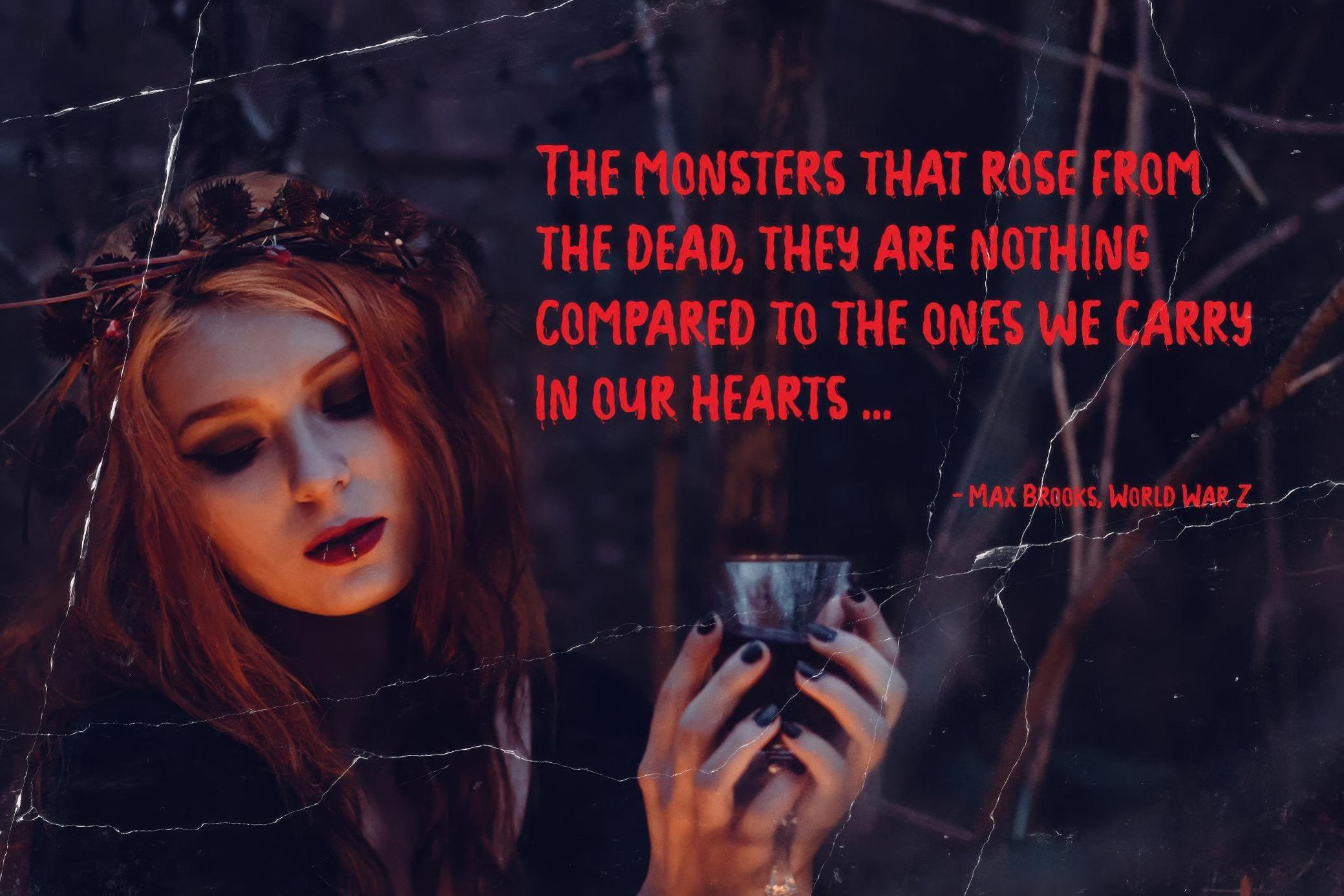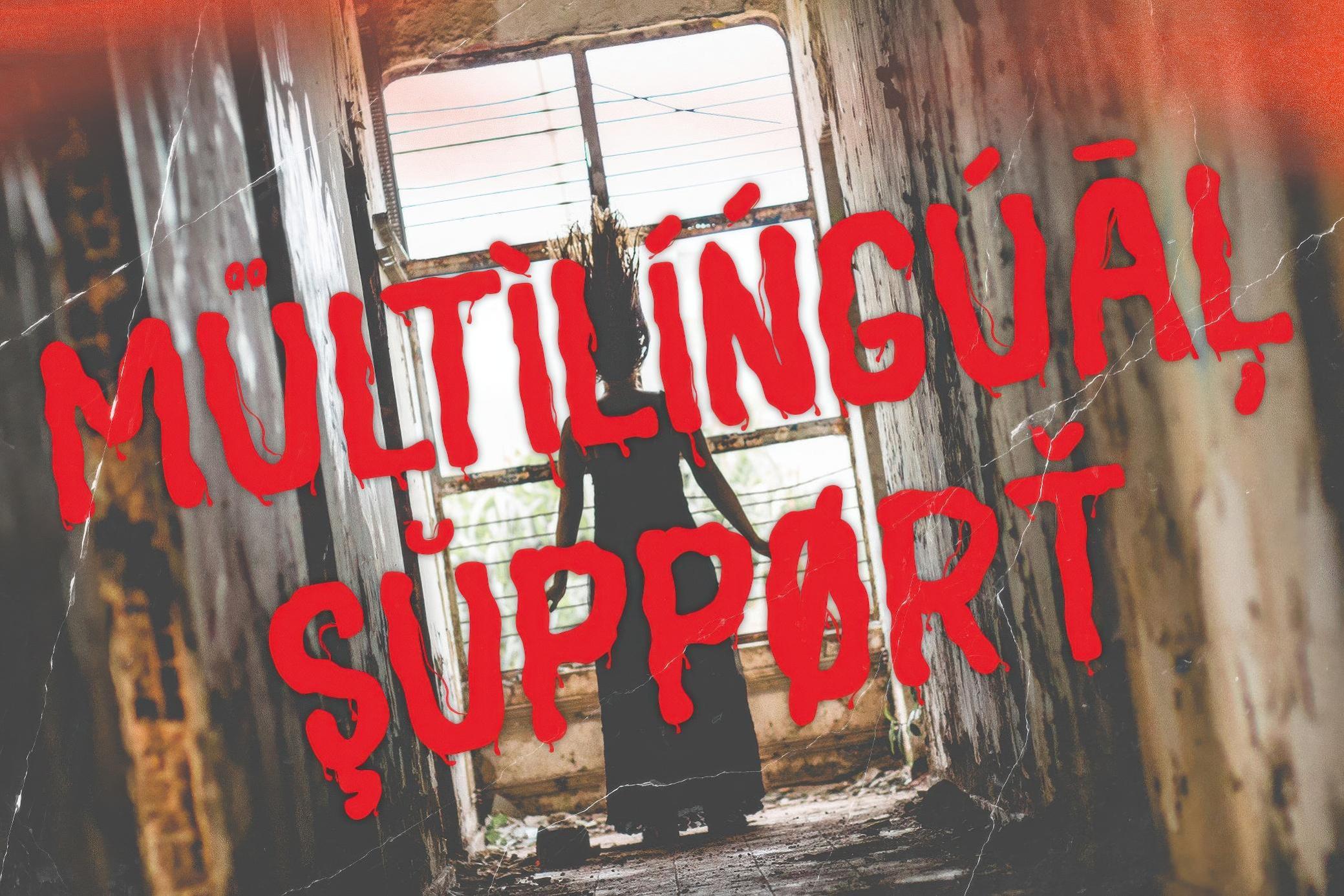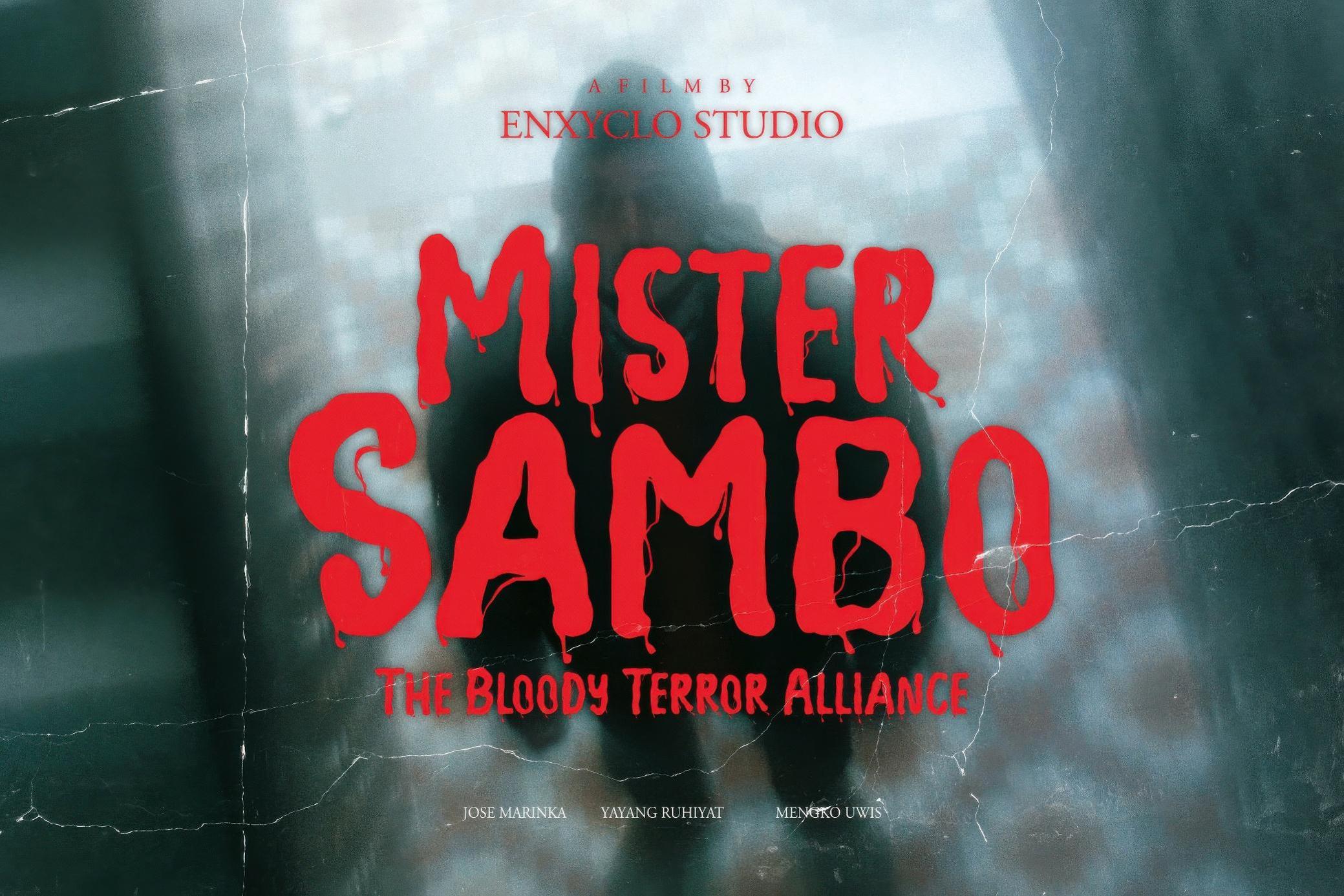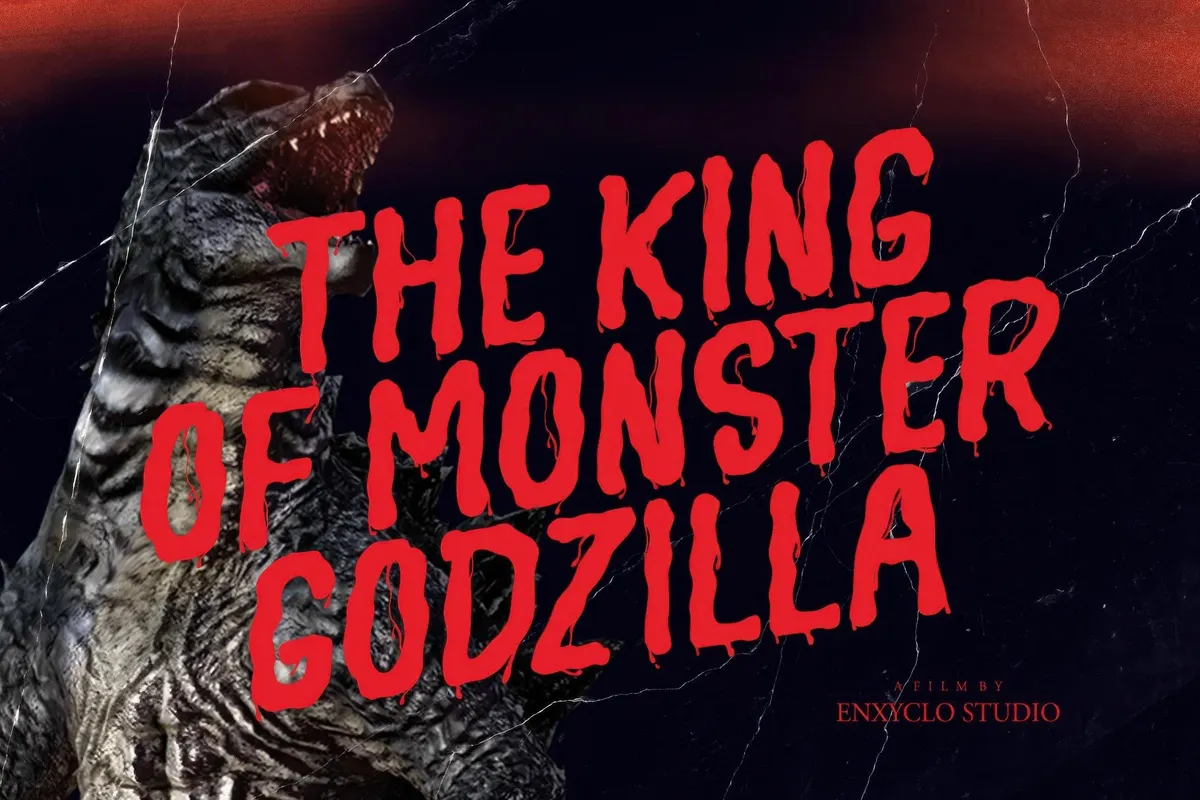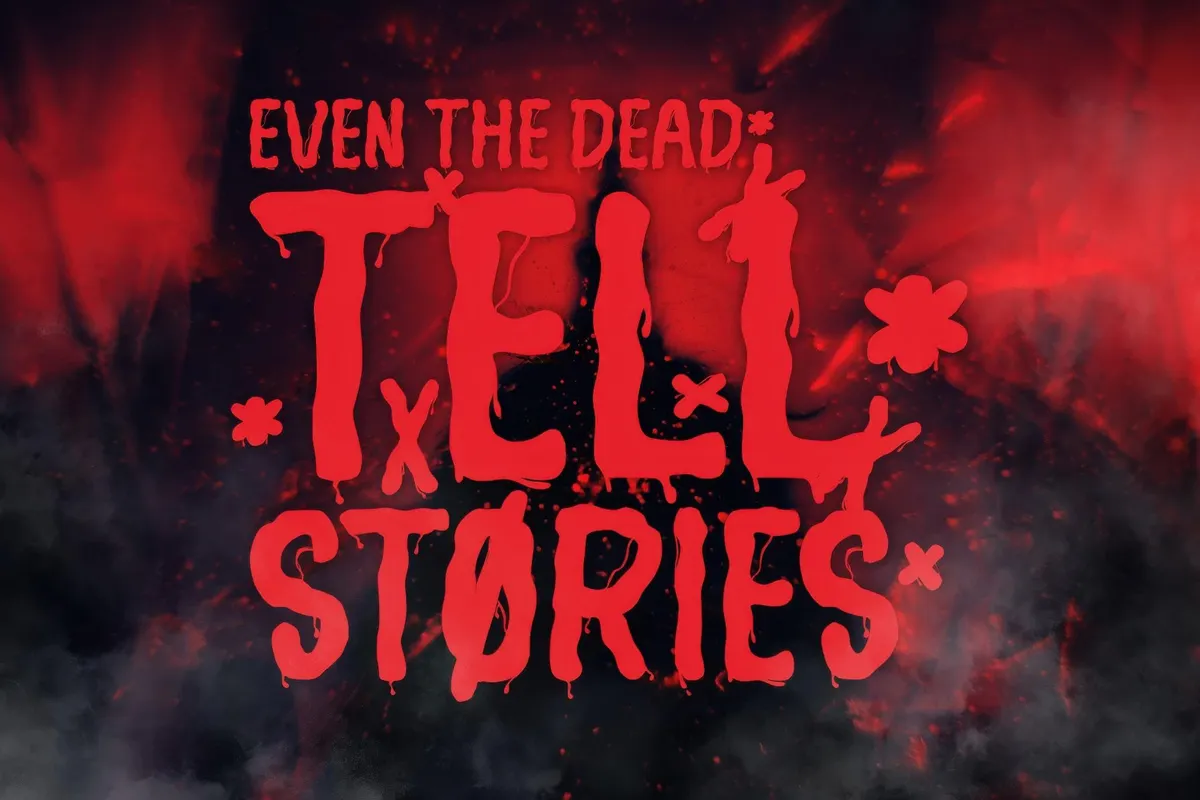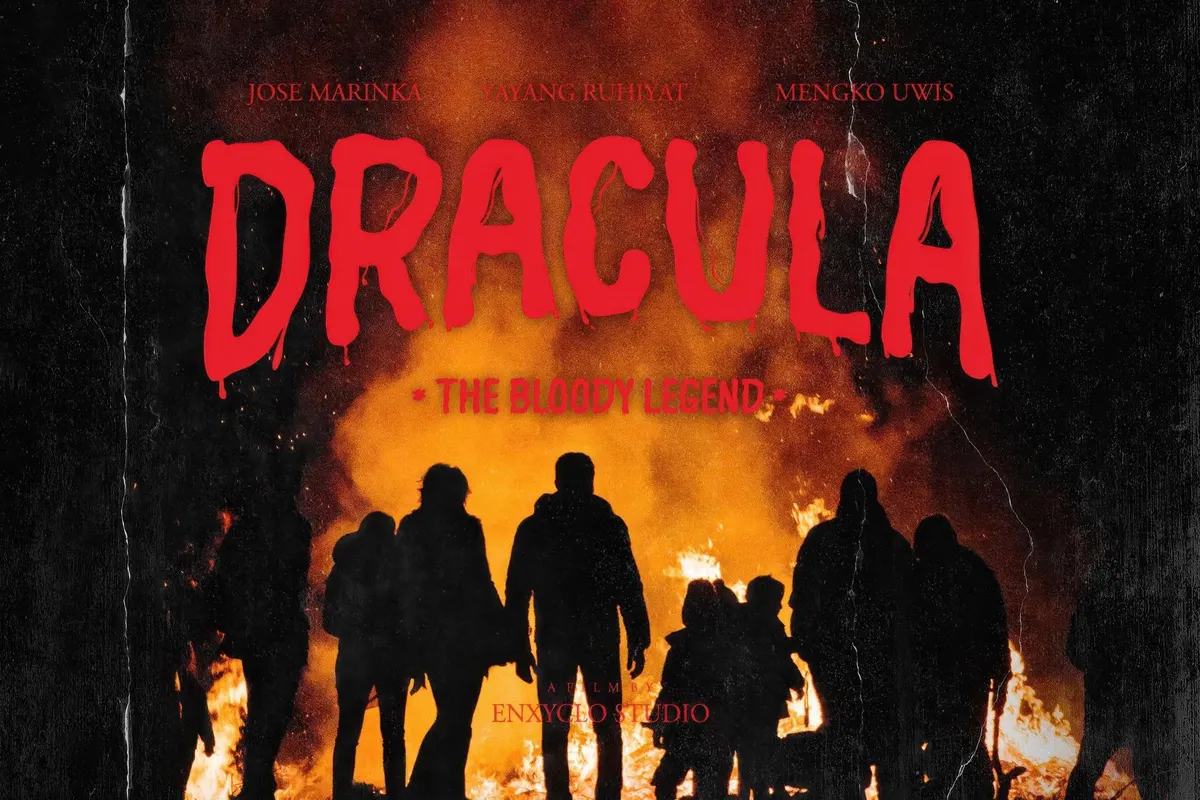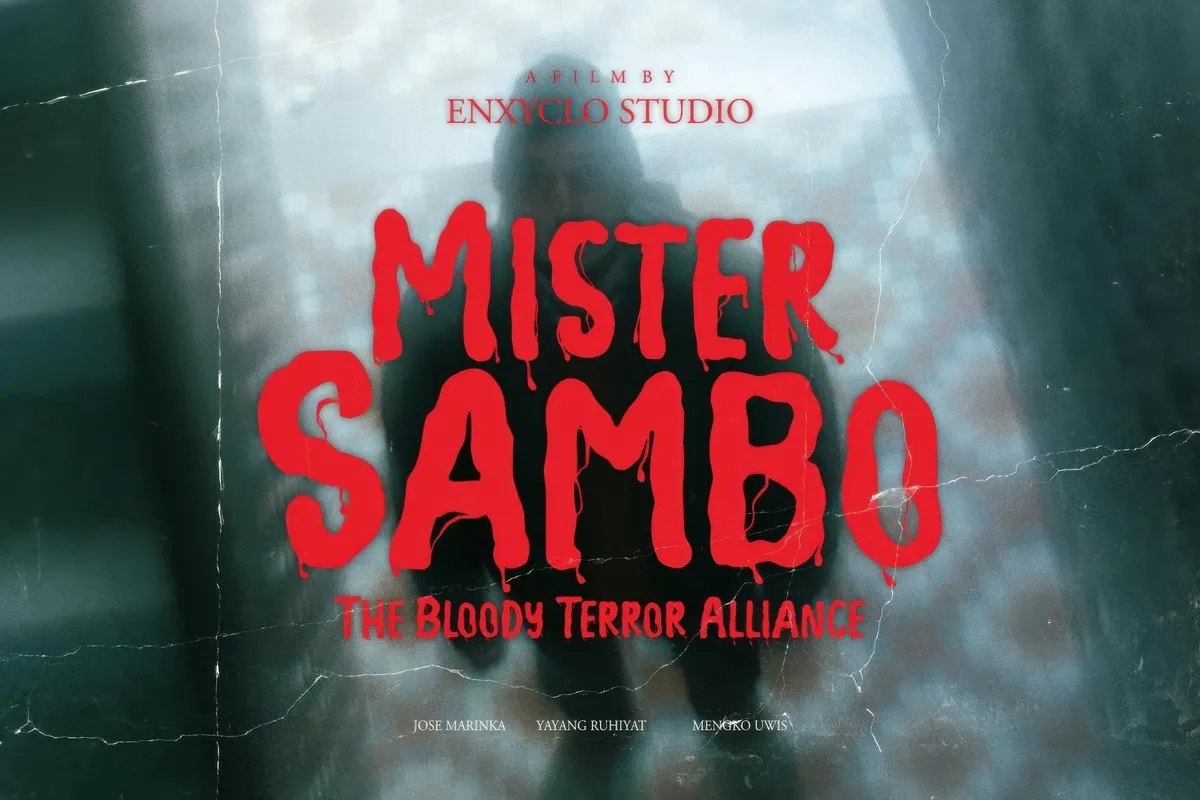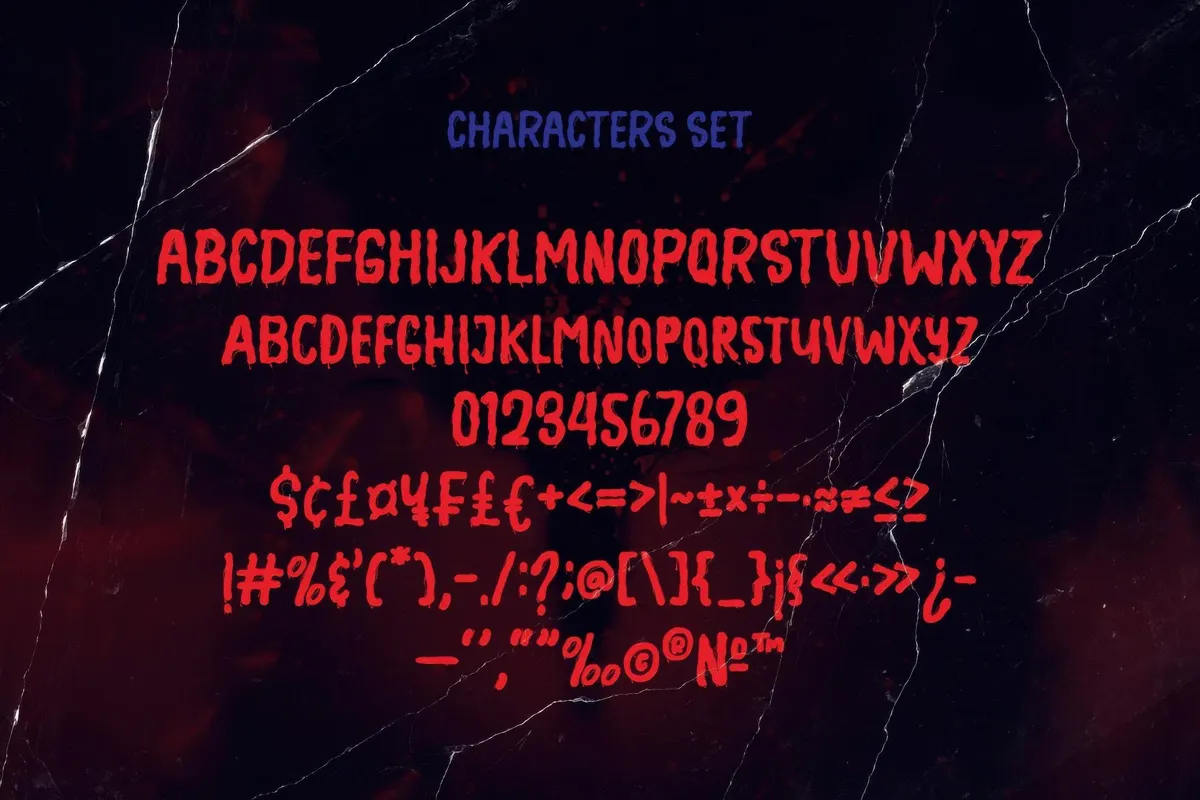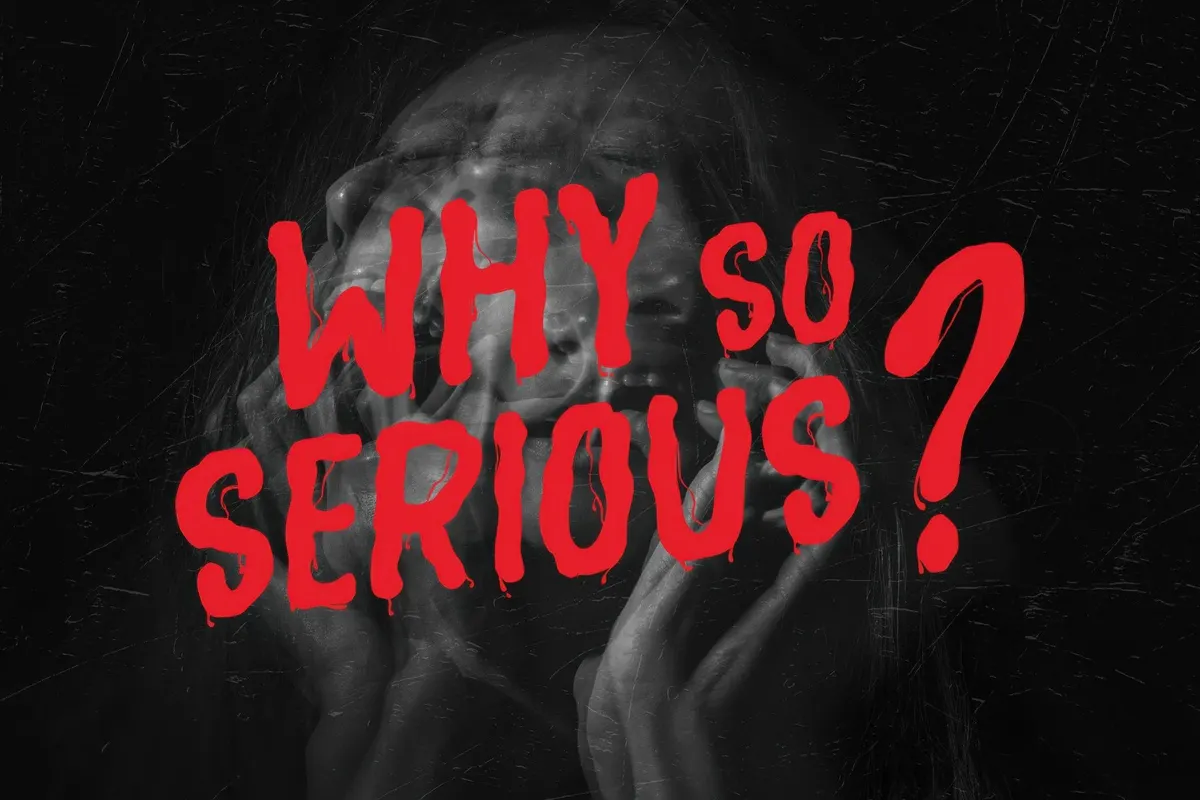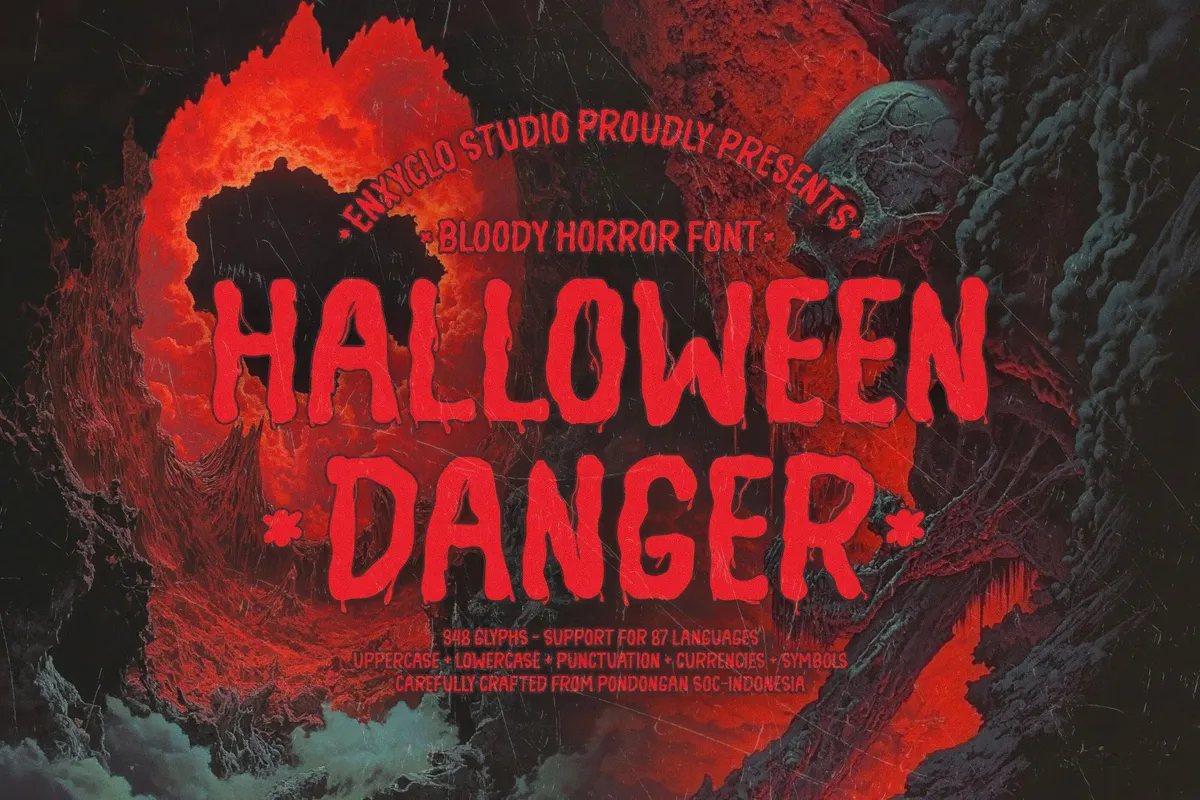
NCL HALLOWEEN DANGER — Bloody Horror Font
Open up your minds and designs to horror fonts chaired by spine-tingling Halloween Danger. Inspired by classic horror films, it is your go-to choice for October 31st and beyond.
NCL HALLOWEEN DANGER is a rough, handwritten horror font with freaky vibes and solid retro aesthetics. Its bold, bulky sans-serif characters make it perfect for large-scale projects like banners, advertisements, posters, headlines, magazine titles, and apparel designs. The package includes a total of 348 glyphs: uppercase and lowercase letters, numerals, punctuation, symbols, and international characters for Latin-based languages.